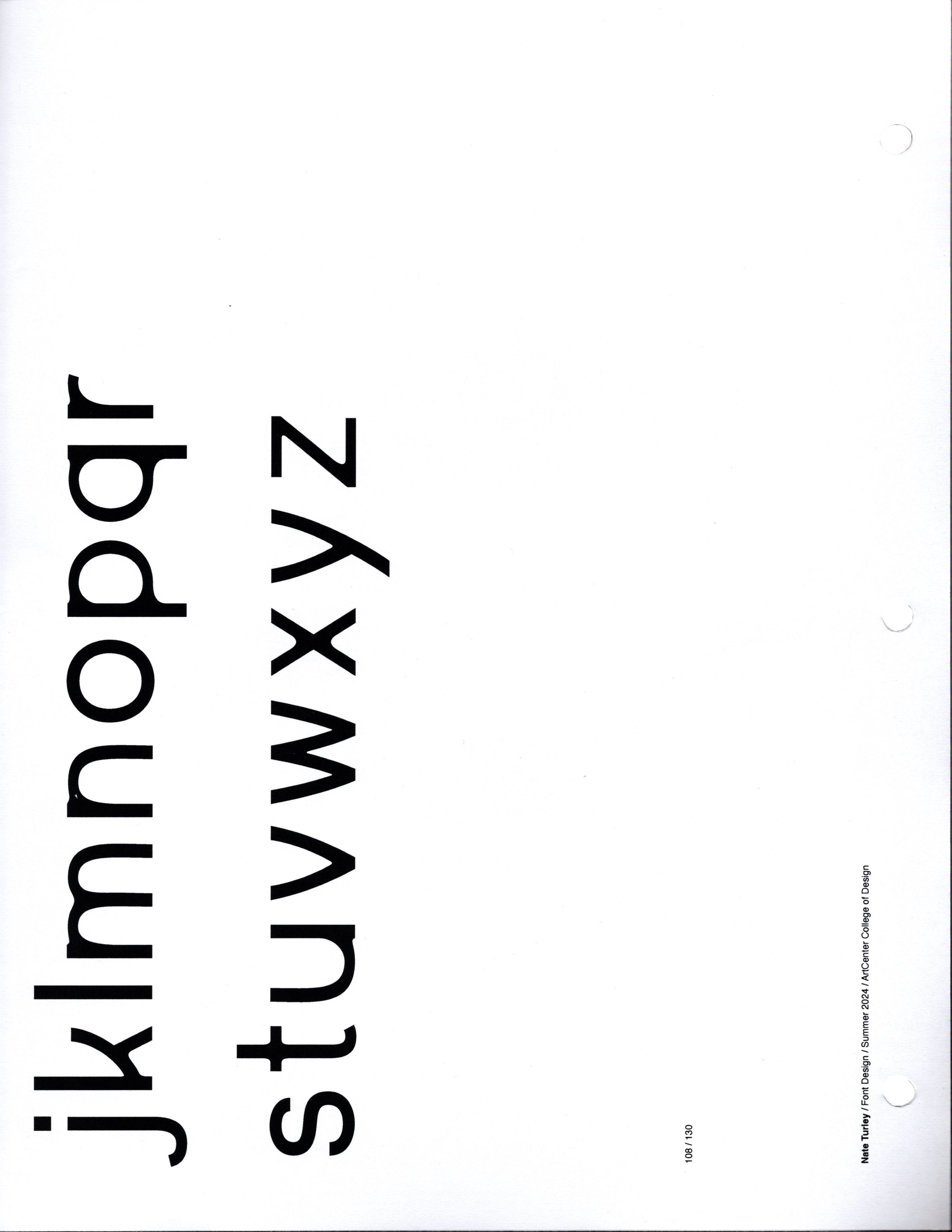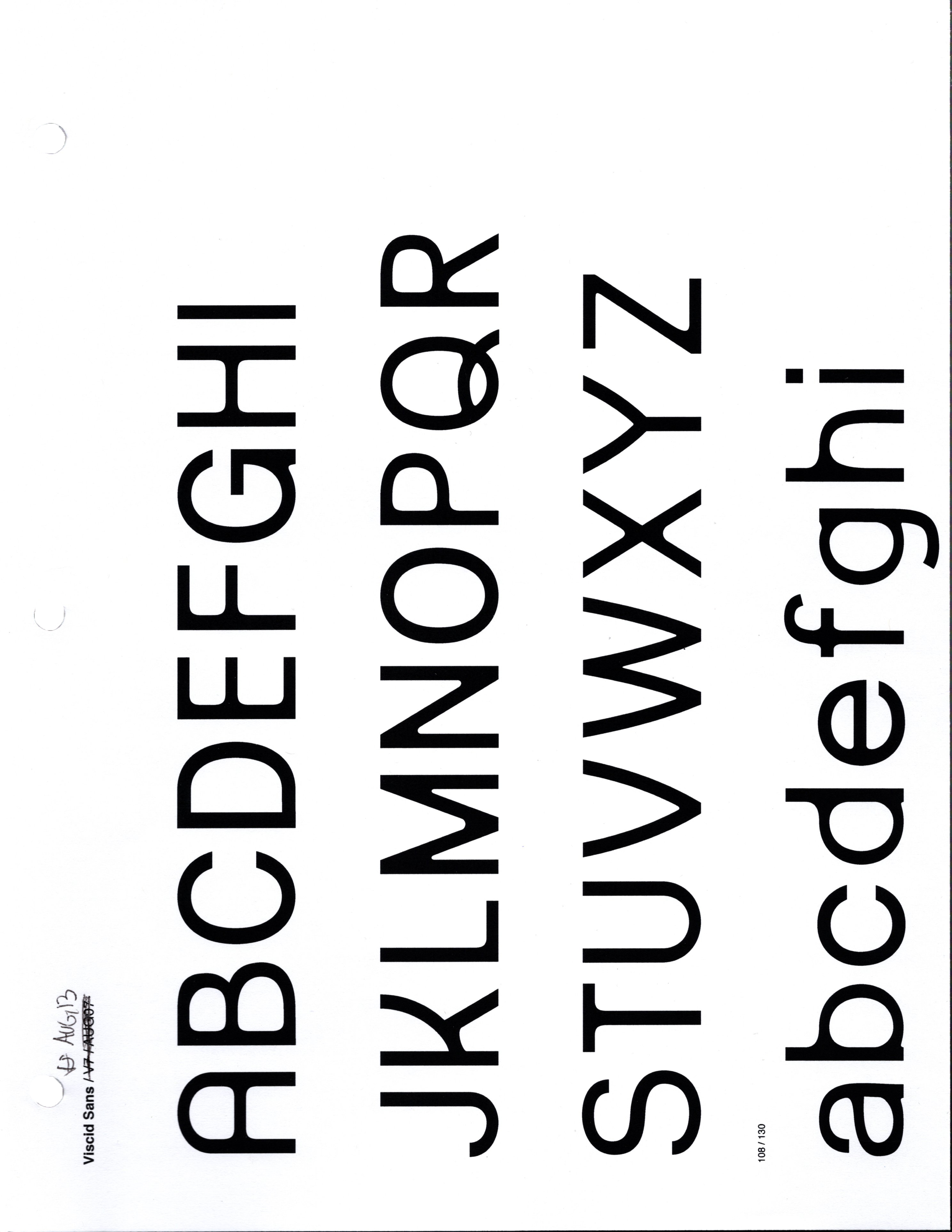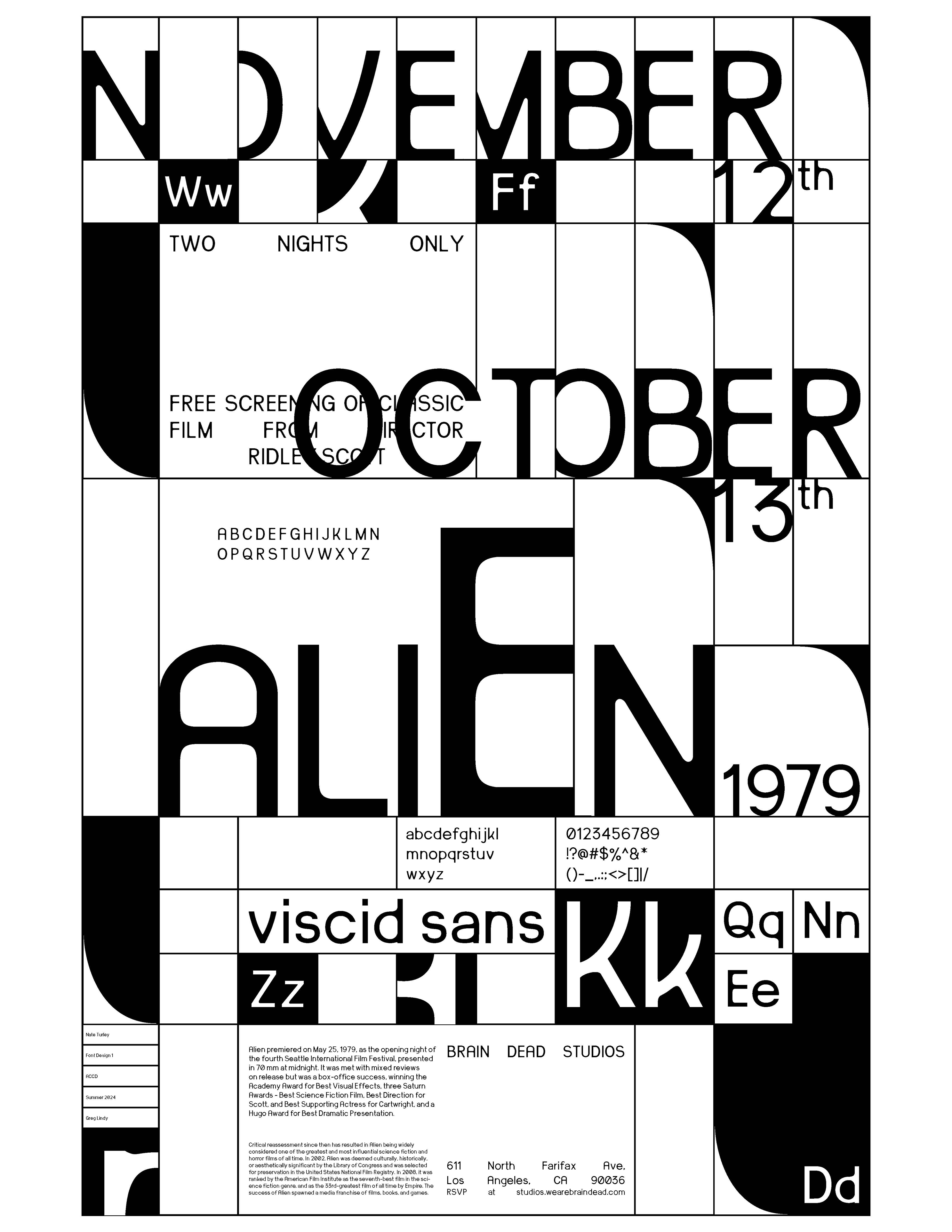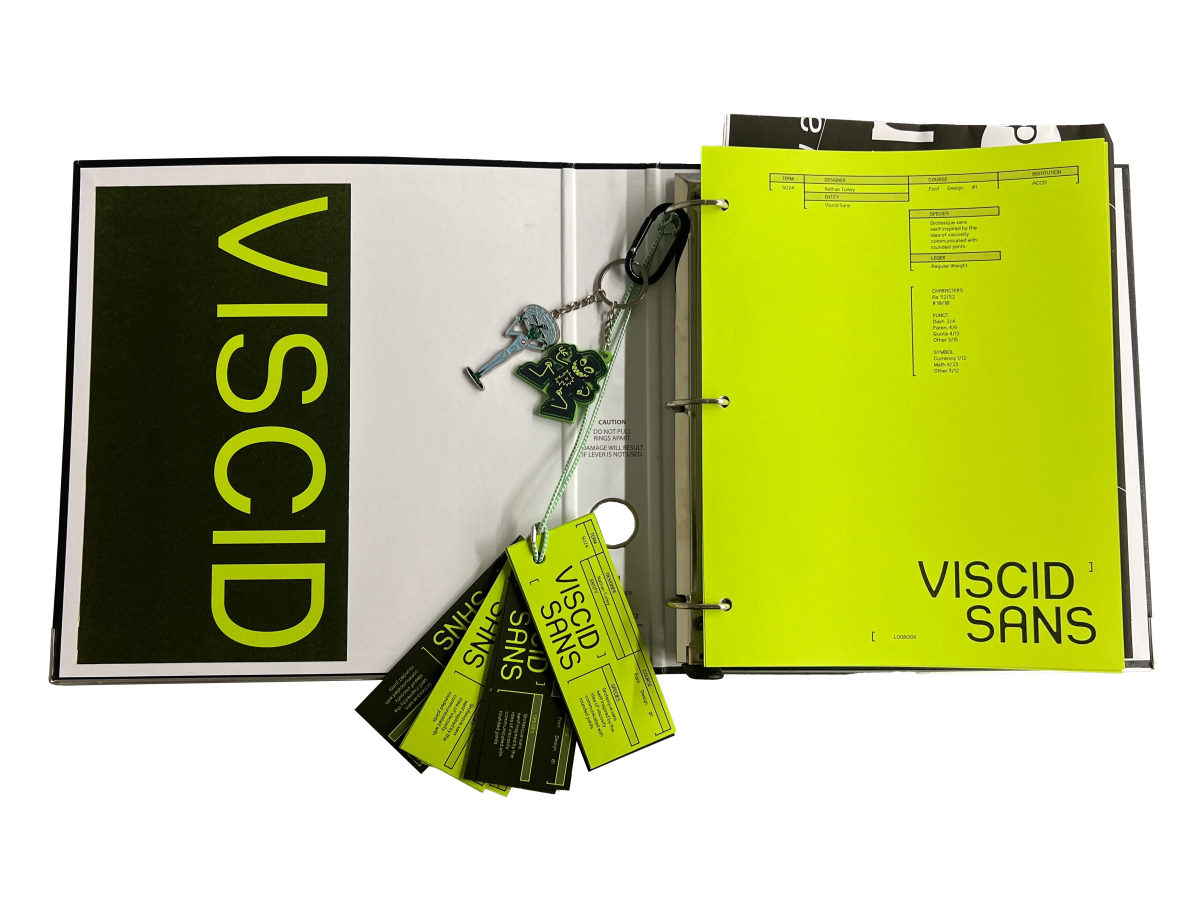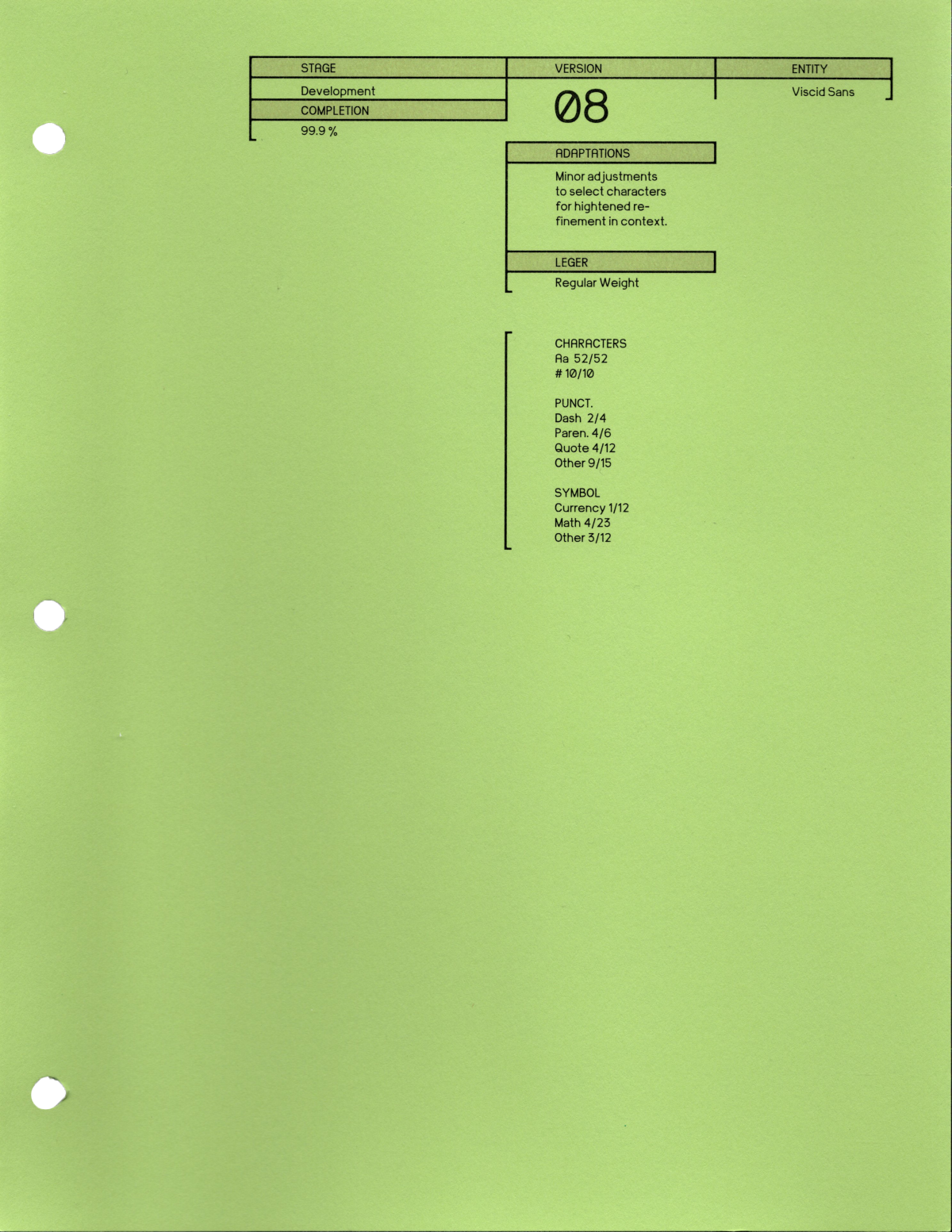
Nathan Turley
Viscid Sans [Font]
Viscid Sans is a font designed in the theme of sci-fi movies, explored through the fusion of architectural sharp edges and organic rounded joints, emphasized to convey a sense of viscosity.